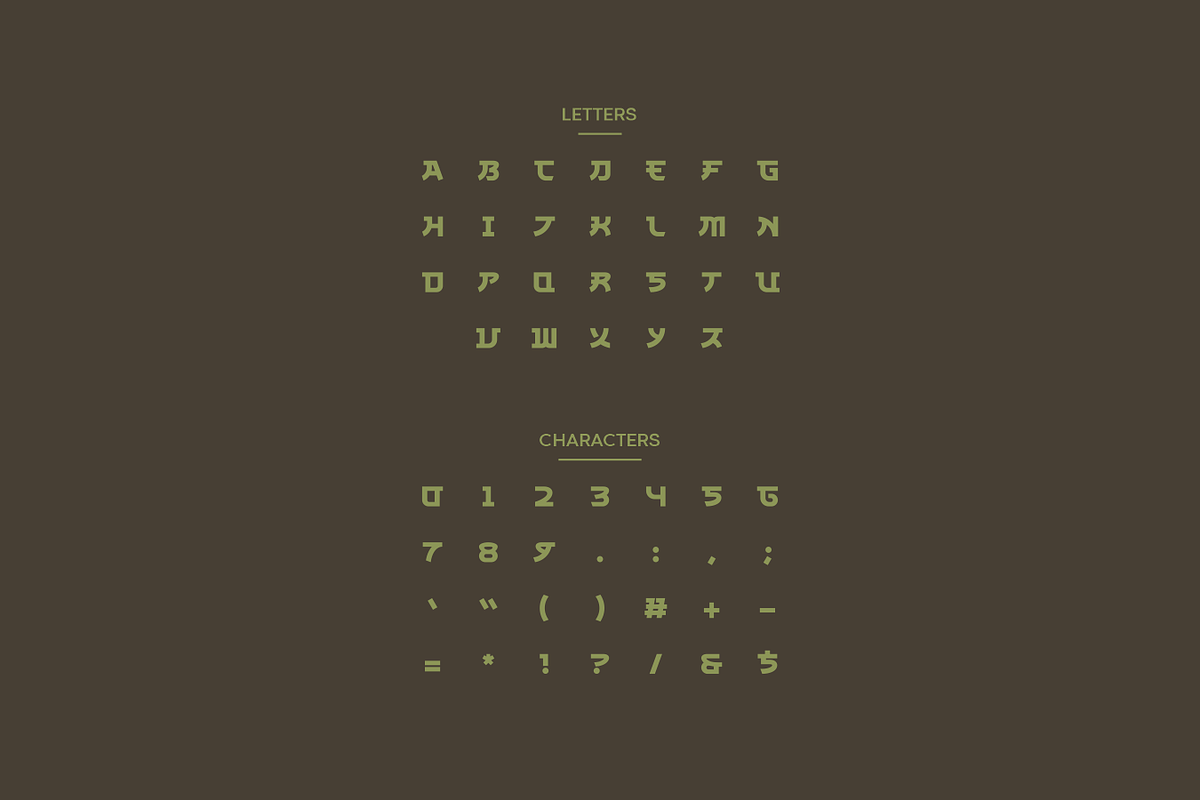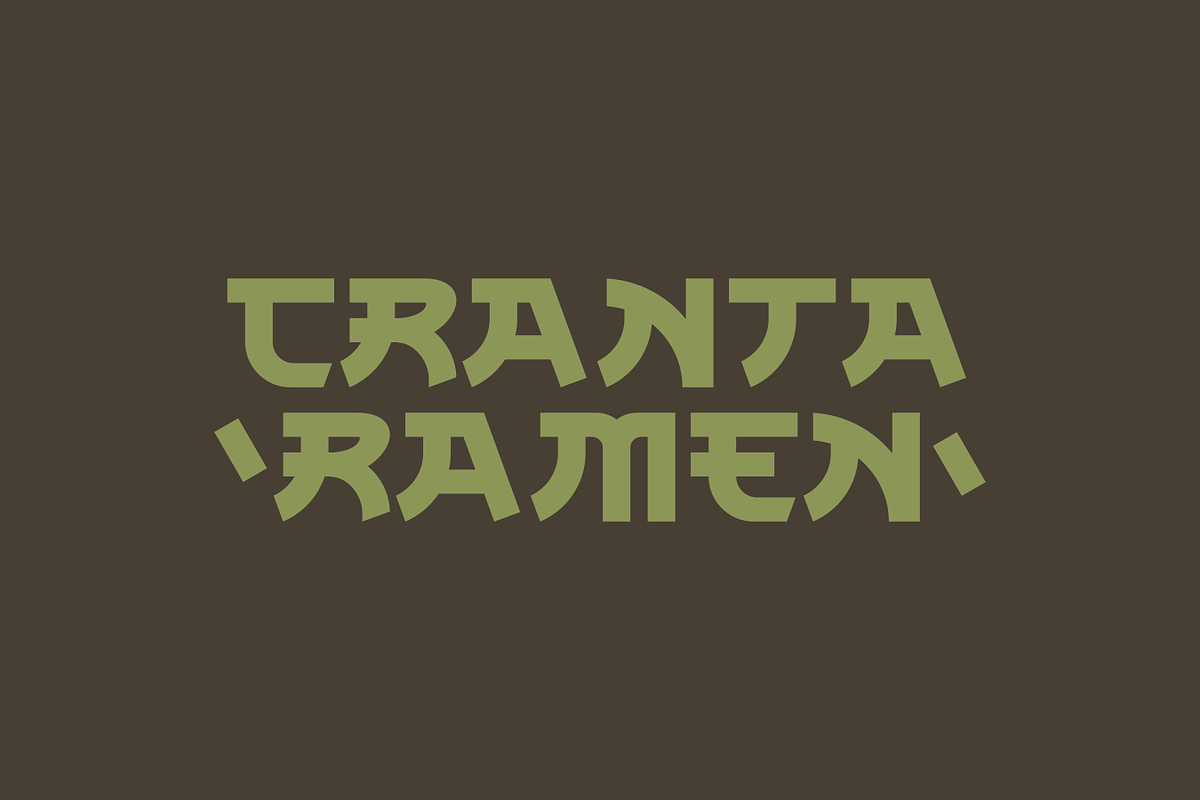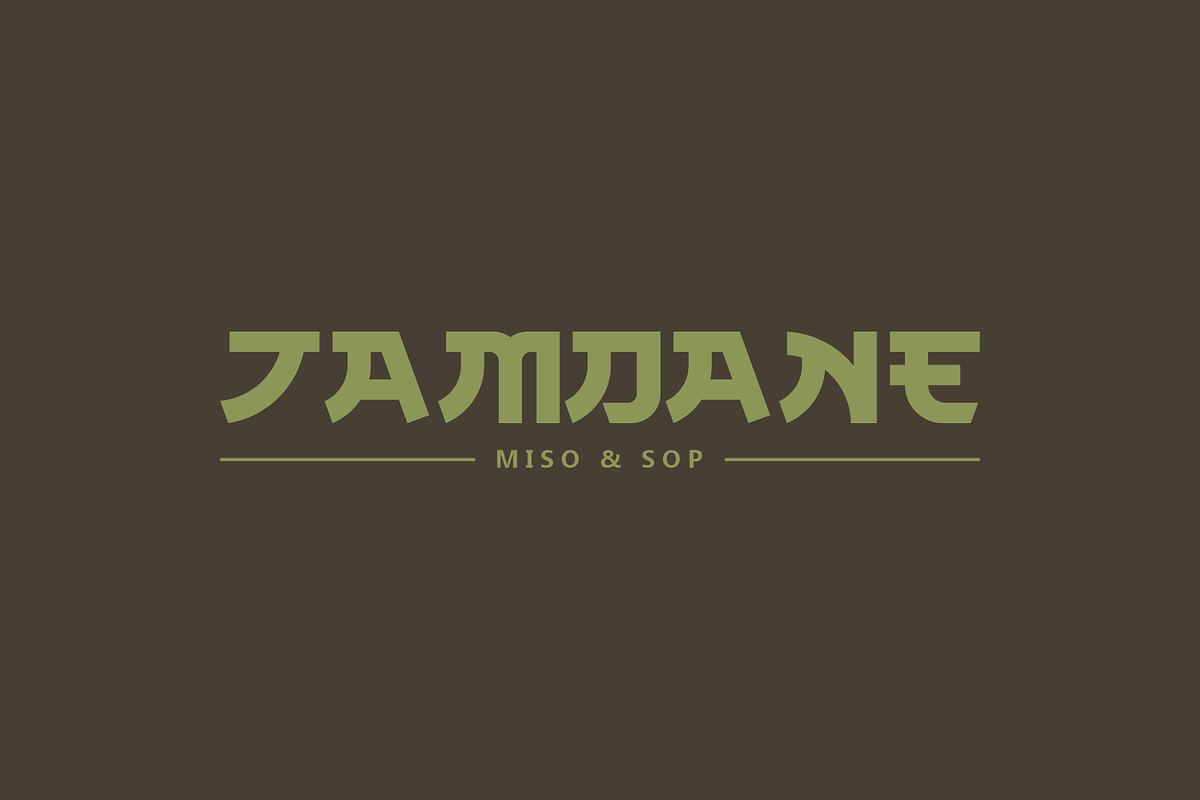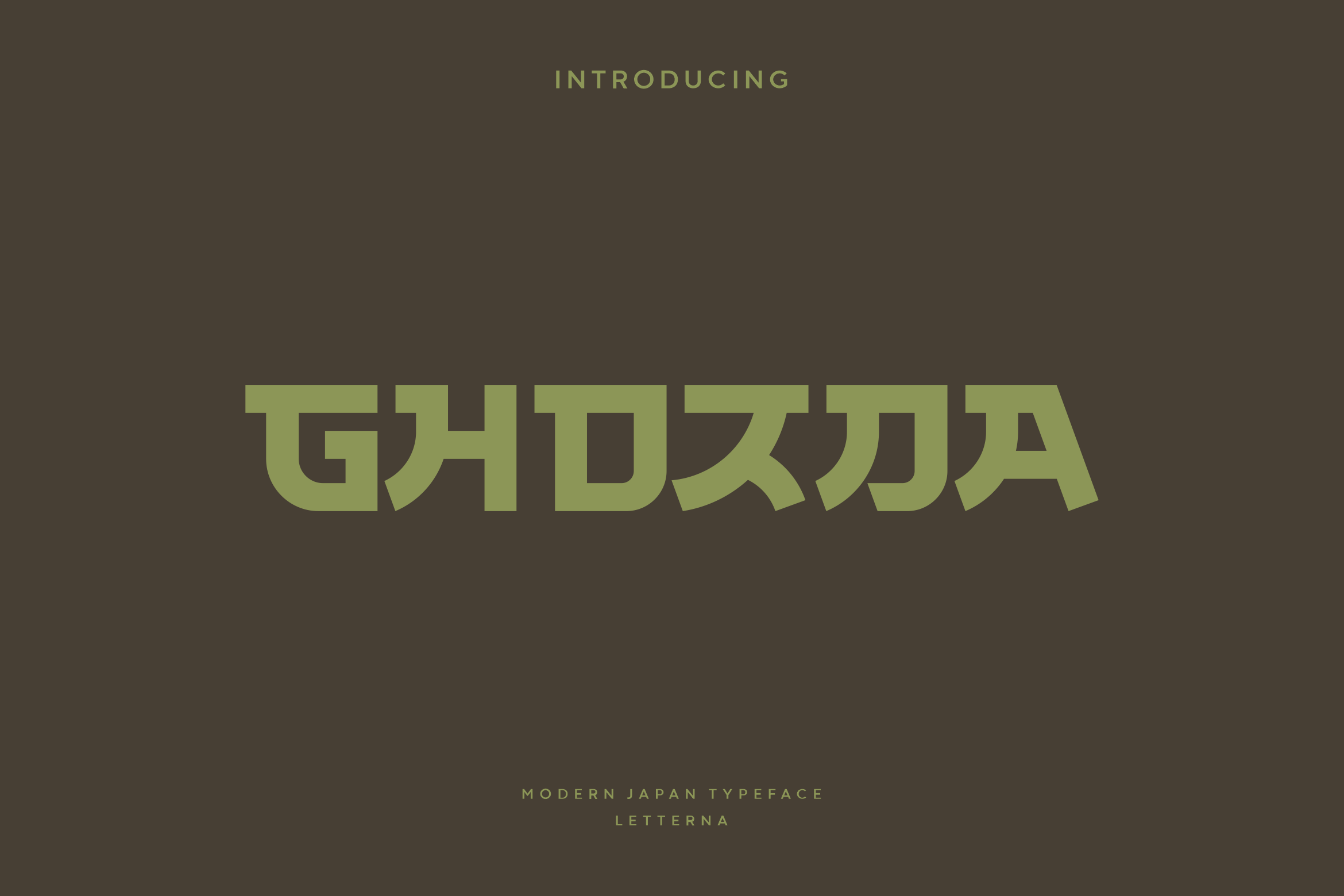
Ghozda - Modern Japanese Typeface
Ghozda is a font with Japanese style, dynamic shapes are also bold making it great for a variety of design and branding needs, even for logos. Ghozda bringing the distinctive feel of Japanese kanji to highlight the strong character of the font, of course this will be very good for designs in the field of food and other sectors related to Japan.